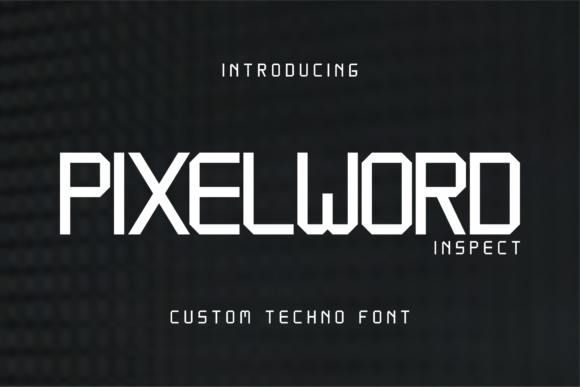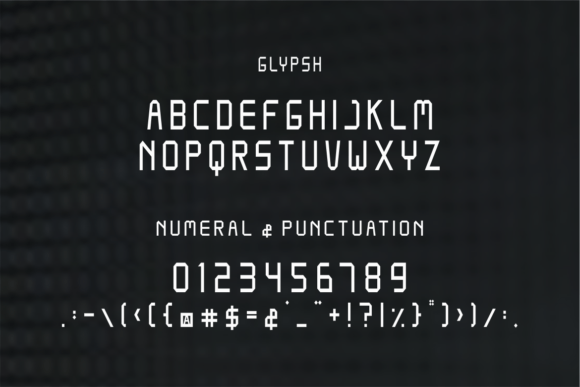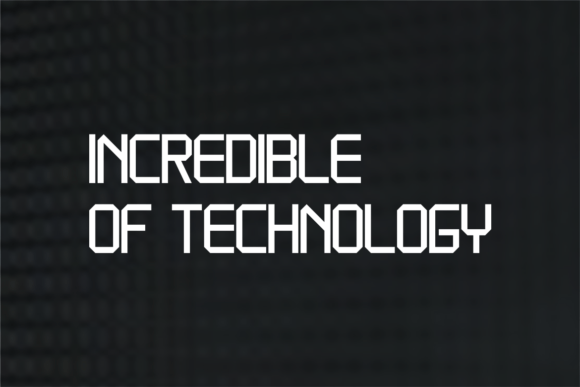
Pixelword Inspect Font Font
About the Pixelword Inspect Font Font
We are excited to introduce Pixelword Inspect Font Font, a must-have typeface for any serious designer. Pixelword Inspect is a classy, modern, and unique sans serif font. It’s a great font for fashion, apparel projects, signatures, album covers, logos, branding, magazines, social media, & advertisements, but also works great for other projects.
Pixelword Inspect excels in display applications such as headlines, logos, and short-form text within branding materials and advertising. Its unique character shines in projects requiring a modern and sophisticated aesthetic. Avoid using it for large blocks of body text or UI elements where readability is paramount; its distinct letterforms might hinder comfortable reading.
For a balanced design, pair Pixelword Inspect with a clean, neutral sans-serif like Lato for body copy or a refined serif like Merriweather for a touch of classic elegance. Alternatively, a geometric sans-serif like Montserrat can create a strong, contemporary pairing.
The font projects a bold, confident, and modern personality, making it ideal for brands seeking to convey innovation and high-end quality.
Pixelword Inspect Font Font Usage Examples
Pixelword Inspect Font Font Example